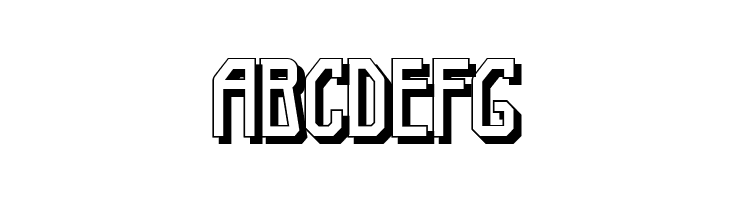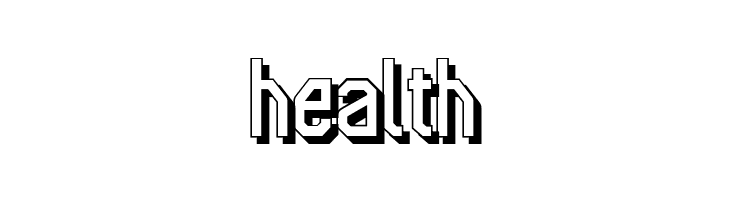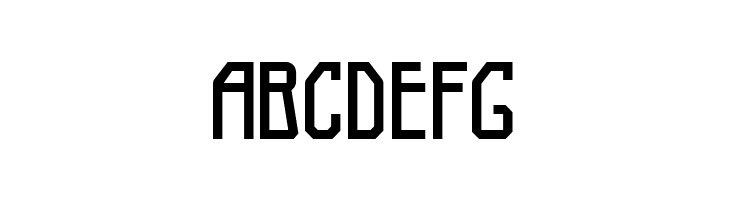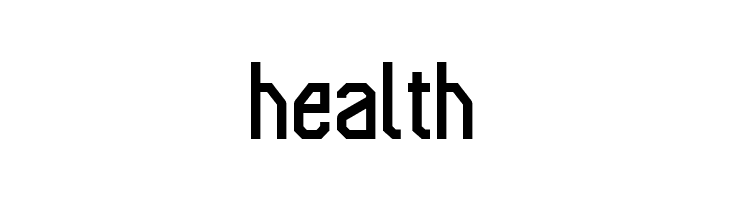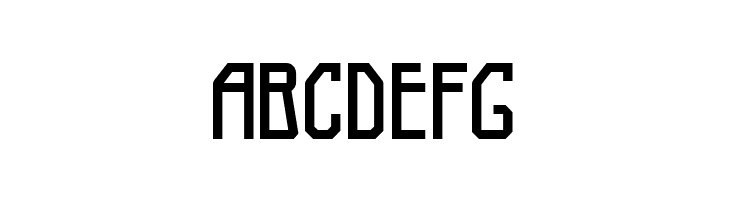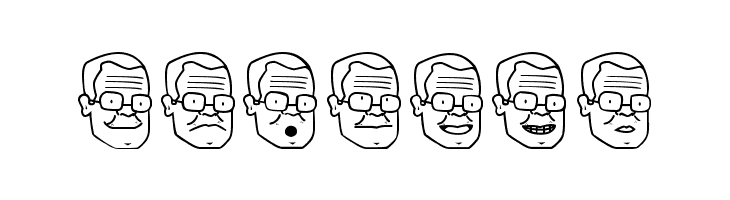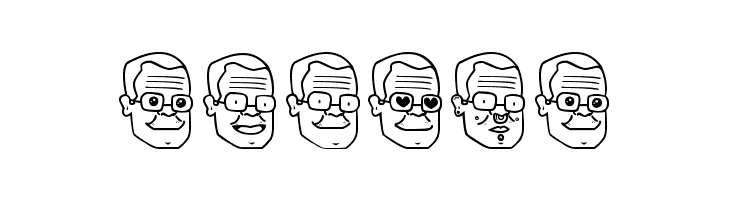
• efontalution_part1
An abstract, symbolic font with a blend of sharp angles and smooth curves.
• efontlution_part2
An ancient script-inspired font with bold, angular, and geometric characters.
• efontlution_part3
A playful, hand-drawn font with a whimsical and artistic style.
• Eight Years Later
A bold, rounded font with a playful and friendly style.
• EL CUBANO
Cartoon face-based decorative display font with expressive characters.
• El Efi de Arena
• Elb-Tunnel
A bold, geometric font with an industrial and modern aesthetic.
• Elb-Tunnel Normal
A geometric, angular font with a bold, industrial style.
• Elb-Tunnel Normal
A bold, geometric font with an industrial and modern aesthetic.
• Elb-Tunnel Schatten
A bold, three-dimensional font with a shadow effect and geometric style.